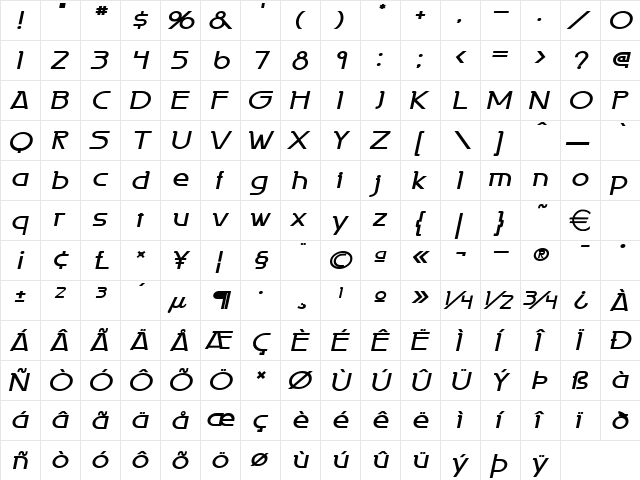
PersiaWide BoldItalic
Design Context for PersiaWide Typeface
PersiaWide is a composed and adaptable typeface that performs quietly and consistently across a wide range of design contexts. Its italic angle brings a sense of urgency and motion to the letterforms. Its bold stroke weight gives it real presence on the page.
Pro Tip: Try PersiaWide for annotation and caption copy alongside an upright companion — the contrast in angle creates a dynamic but ordered typographic system.